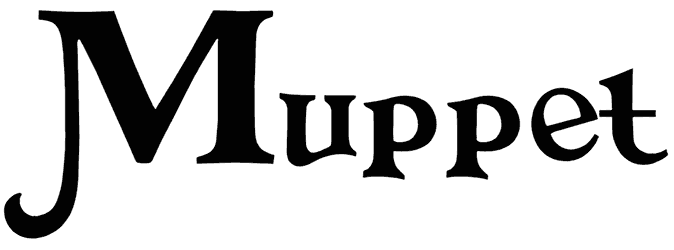
Muppet Font
Nostalgia and groove radiate from witch fonts, and this one does the same to the reader. Muppet font contains bold characters which have a vintage and upbeat look on them that we have seen on our beloved muppet shows. You can use Muppet in retro movie and book titles, channel banners, and fashion blogs.
A fan made creation based off the Muppet Show logo from 1976, The Muppet Font is a typeface made up from different merchandise containing custom made letters to make up a working typeface, with original letters and numbers added on as a bonus.